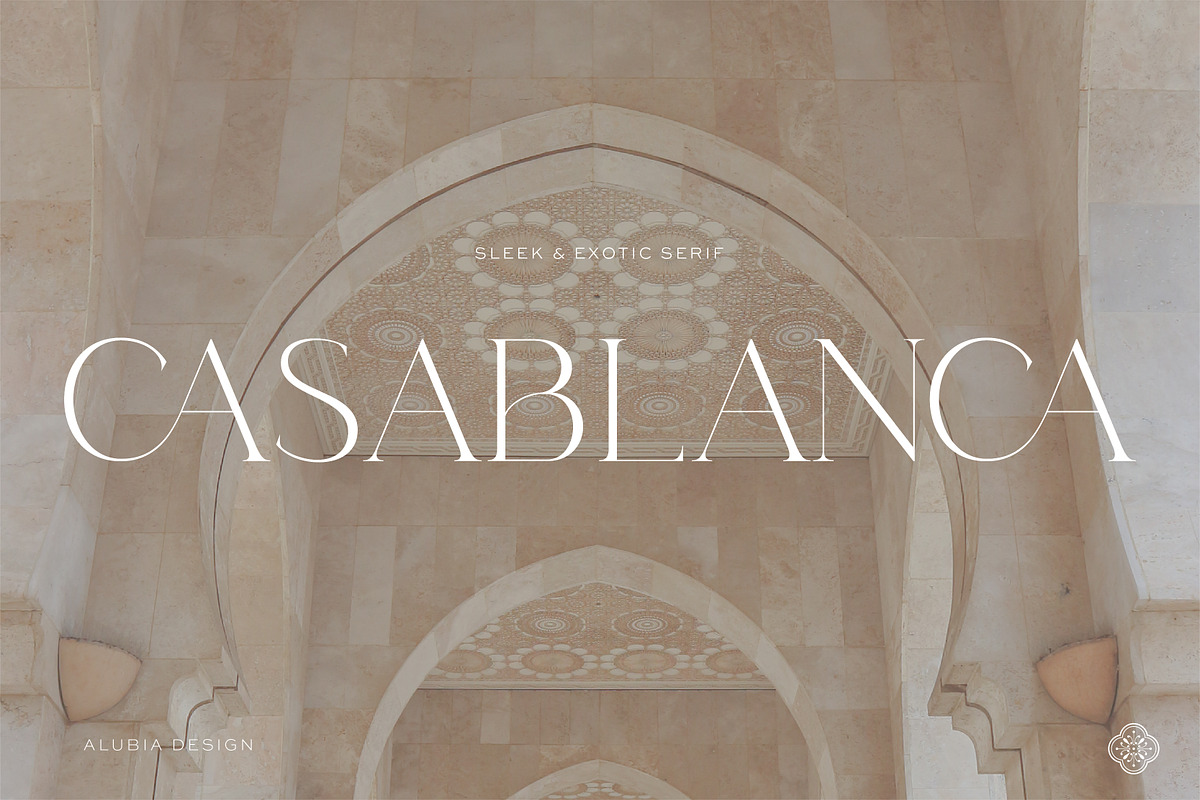
Step into a world of timeless sophistication with CASABLANCA, a bold and beautifully crafted serif typeface that fuses the rich heritage of classic typography with modern, exotic flair. Designed for creatives who demand elegance, precision, and visual impact, CASABLANCA isn’t just a font—it’s a statement of refined taste and artistic intention. Whether you’re designing luxury branding, editorial covers, high-end fashion visuals, or captivating digital experiences, this typeface delivers unmatched presence and character.
Masterpiece Design: Sophisticated Forms, Seamless Flow
CASABLANCA is meticulously engineered to deliver visual harmony and expressive power. Every glyph is hand-crafted to ensure consistency, balance, and depth—creating a seamless reading experience that captivates the eye and elevates your message. The typeface’s elegant curves, refined counters, and graceful serifs give it a sense of movement and purpose, turning ordinary text into a form of visual storytelling.
- Dramatic Ligatures: Explore over 50 beautifully designed ligatures that flow naturally between letters, eliminating awkward spacing and adding a layer of artistic refinement. Use them in headings, logos, or decorative elements to create a unique visual rhythm.
- Complete Character Set: Full support for uppercase and lowercase letters, numeric digits, punctuation, and international symbols—including diacritical marks for French, German, Spanish, Portuguese, and other language variants.
- Multilingual Readiness: Built with true multilingual support, CASABLANCA enables use across diverse markets, making it ideal for global brands and internationally focused projects.
Perfect for Luxury, Fashion, and Editorial Excellence
From fashion editorials to upscale branding, CASABLANCA excels where refinement matters. Its distinctive personality shines in:
- Logo Design: Create unforgettable brand identities with a unique balance of vintage charm and modern clarity.
- Editorial & Magazine Layouts: Add sophistication to article titles, pull quotes, and section headers.
- Packaging & Retail Design: Infuse product packaging with an air of luxury and exclusivity.
- Digital & Web UI: Deliver refined copy with a premium feel on websites, apps, and interactive platforms.
Key Features at a Glance
- Full ligature set for enhanced visual flow
- Comprehensive multilingual character coverage (90+ languages)
- Regular weight only (no bold or italic variants)—designed for a consistent, strong visual tone